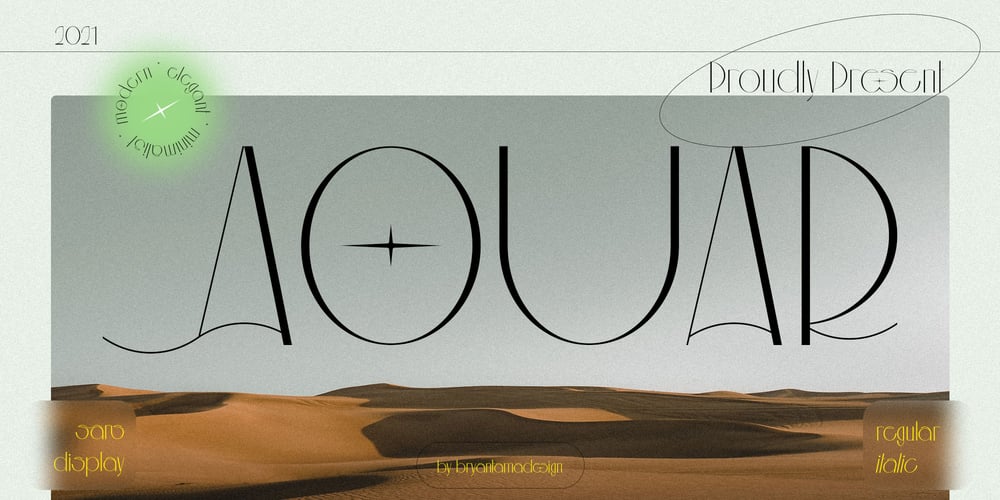
Aouar
Aouar font
Aouar Font Family was designed by Bryantama Nur Hidayat Suyoto and published by Bryantamanh. Aouar contains 2 styles and family package options. Introducing Aouar. Minimalist, modern, elegant sans display font.Inspired by a minimal luxury theme with desert landscape feels that makes the font has a unique personality, you can use it for branding, social media, posters, packaging, & more. Aouar font OpenType feature, ligatures, alternates, and Multilingual support.